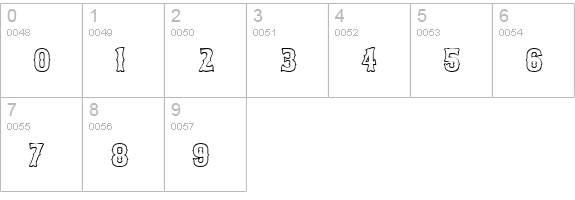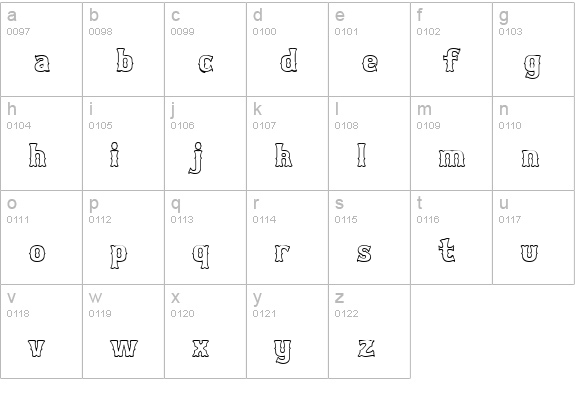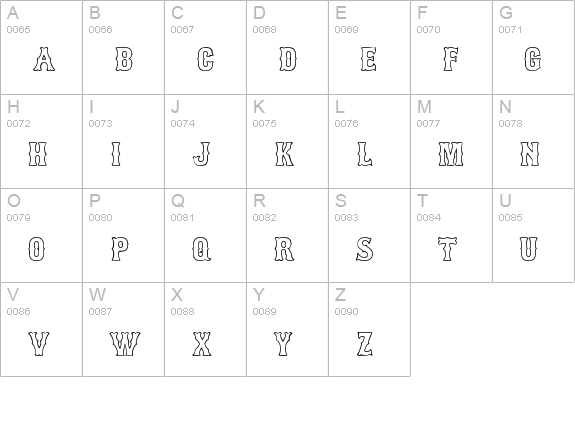
Bosox Outline Font Details
Bosox Outline font is a stunning display typeface that captures the essence of boldness and sophistication. With its sleek and modern design, this font is perfect for adding a touch of elegance to any project. The unique outline style of Bosox Outline font makes it stand out from the crowd, making it an excellent choice for headlines, logos, posters, and other eye-catching designs. Its clean lines and sharp edges give it a contemporary look that is sure to impress. What makes Bosox Outline font even more appealing is that it is available for free download at FontsMarket.com. This means that you can easily access this amazing font without having to spend a dime. Whether you're a professional designer or a hobbyist, Bosox Outline font is a must-have in your font collection. Not only is Bosox Outline font free, but it also offers a wide range of characters, including uppercase letters, lowercase letters, numbers, and punctuation marks. This versatility allows you to use this font for various design projects, ensuring that you have the perfect typeface for every occasion. With its sleek design, versatility, and free availability, Bosox Outline font is a true gem in the world of typography. Download it today from FontsMarket.com and unlock a world of possibilities for your design projects.